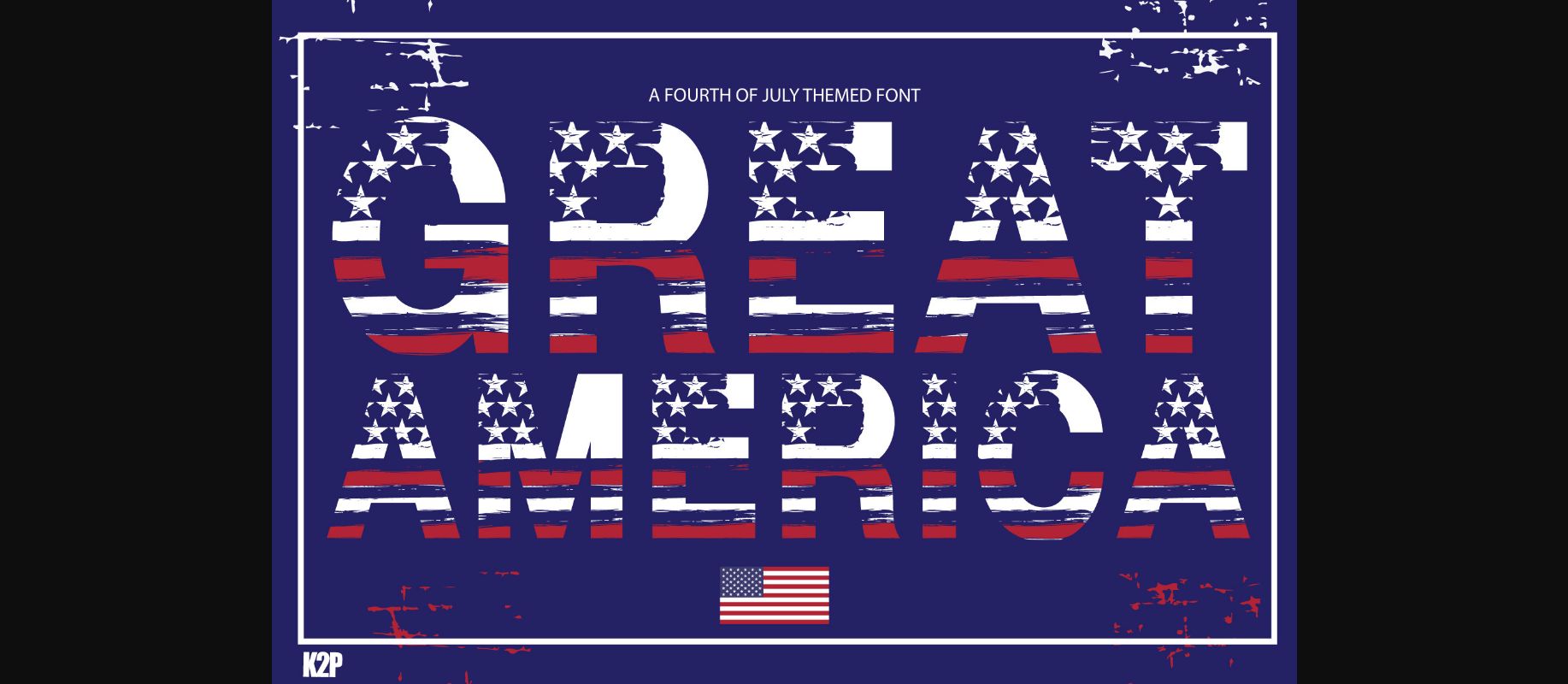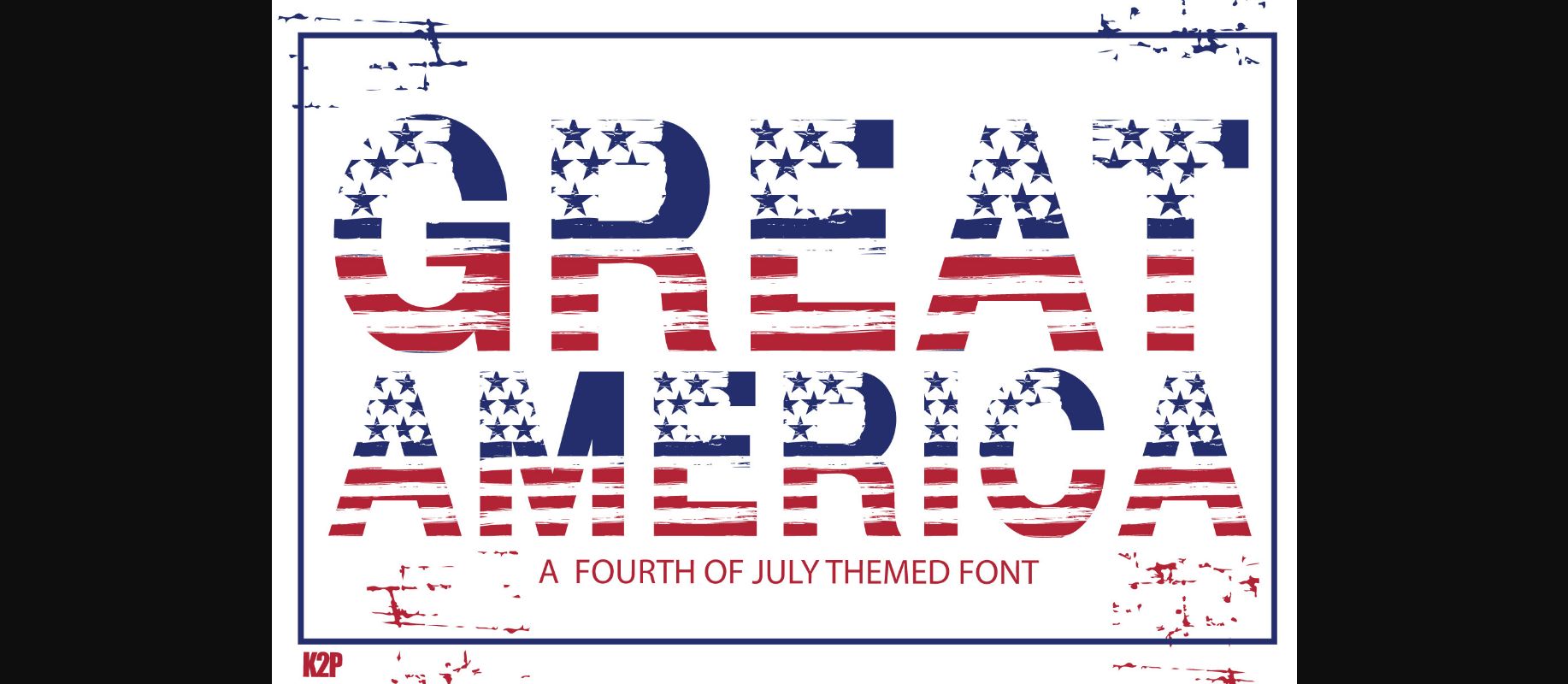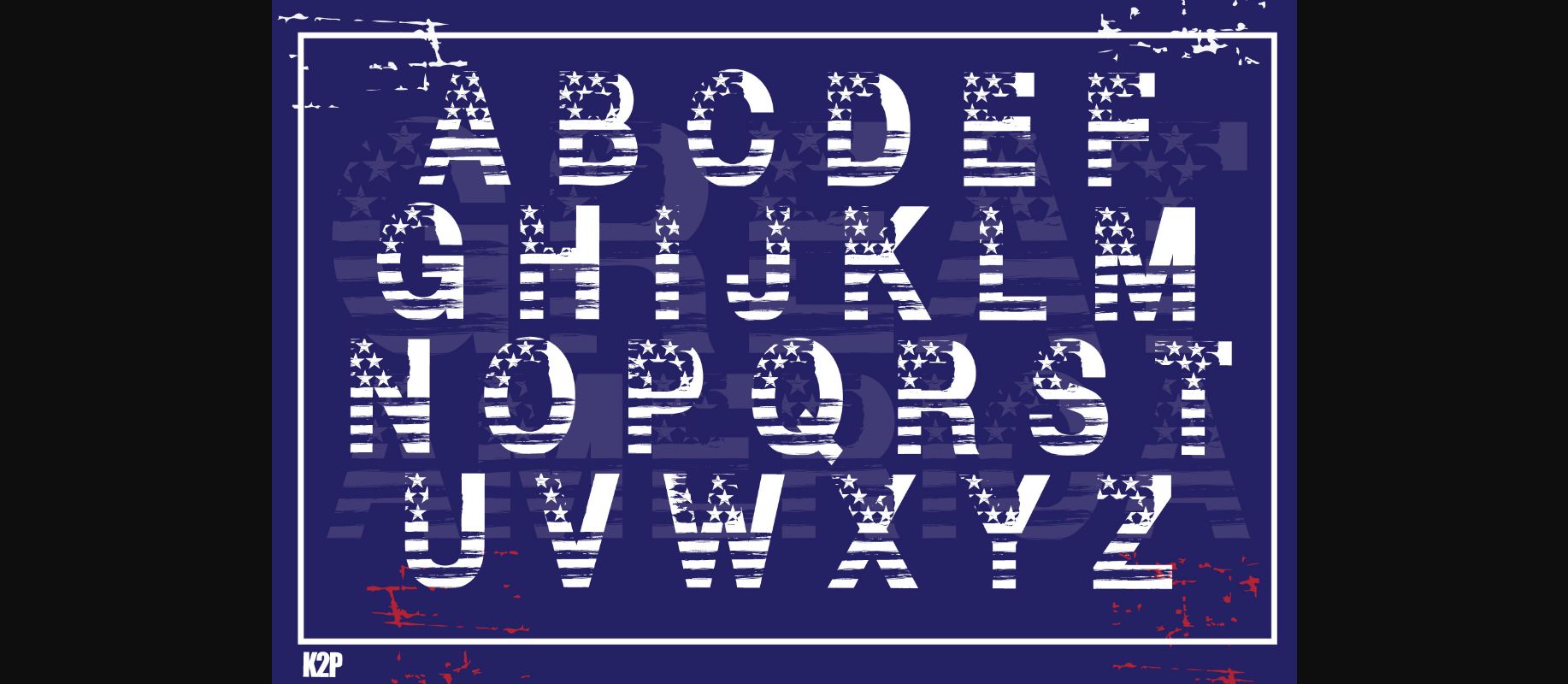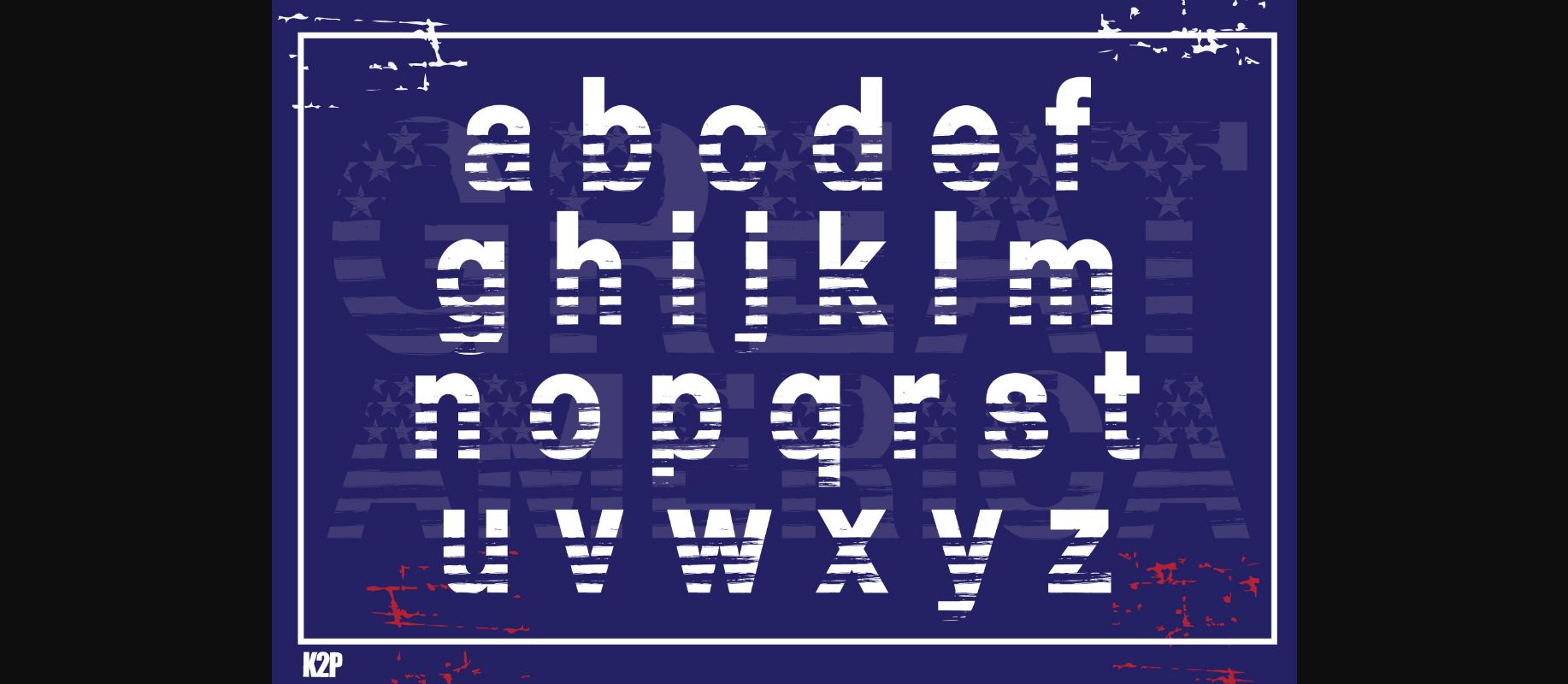
About Great America Font
Great America is a bold, incredibly cool, and assertive decorative font. It can be used for various design ideas related to patriotism, the USA, or anything alike. Have fun with this beautiful font, and explore its endless variations.